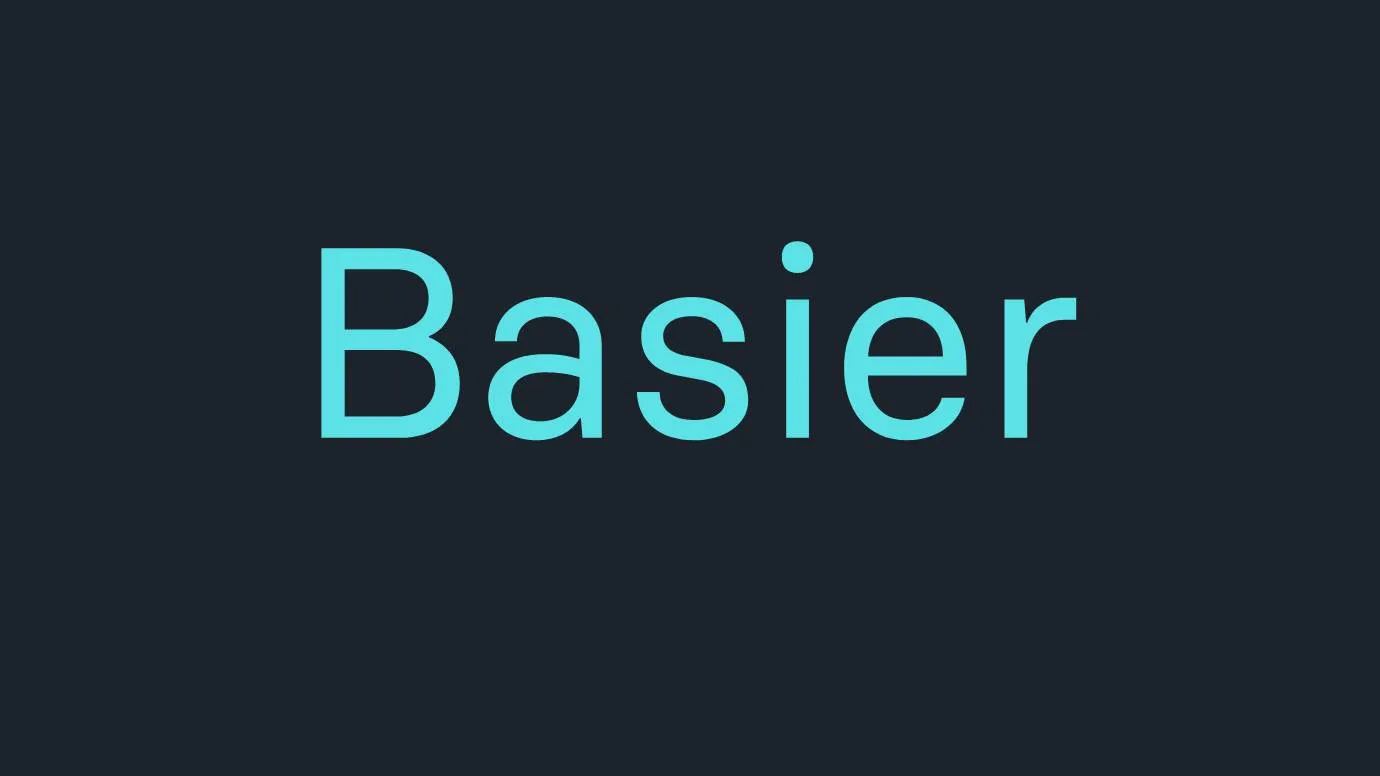
Basier Font Family is a sans-serif type font that looks elegant and smooth. Its bold and extra bold weights come with stylistic substitutes. The founder and publisher of this fantastic font are Jakob Runge.
Basier Font
DesignerJakob Runge